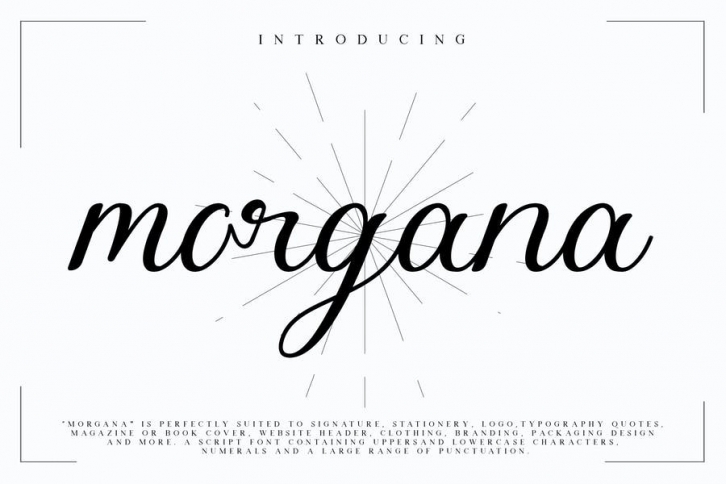
Are you looking for a simple and elegant handwriting font? We can help! Try to download our Morgana Signature Script font. The font is suitable to use for casual purpose. Try to use it on Wedding invitation, photography, branding and signature to see the best of it :)